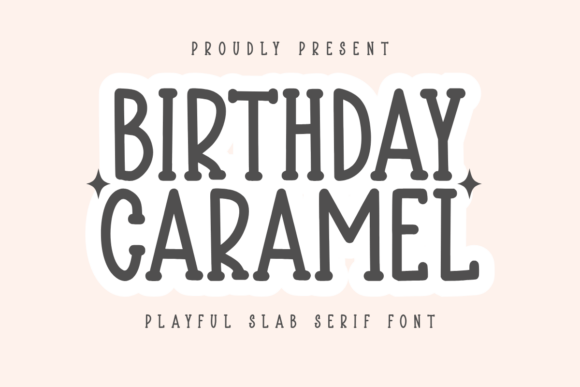
The Perfect Font for Celebrating Life’s Special Moments
Who doesn’t love a good birthday party? The excitement, the cake, the balloons, and the decorations – it’s a time to let loose and have fun! As a designer, you’re often tasked with creating the perfect visual elements to match the celebratory atmosphere. That’s where the Birthday Caramel Font comes in – a playful slab serif font that’s sure to bring a smile to anyone’s face.
With its rounded edges and bold presence, the Birthday Caramel Font is the perfect choice for creating eye-catching birthday invitations, kids’ party decor, product packaging, greeting cards, posters, and more. As a designer, you’ll appreciate the versatility and friendliness of this font, which can instantly elevate your creative projects and make them stand out from the crowd. Whether you’re working on a birthday party design or just need a fun font to add some personality to your work, the Birthday Caramel Font is a valuable addition to your design toolkit.
Birthday Caramel Font Key Features
- Font Family: Birthday Caramel
- Unique Characteristics: Hand-drawn, whimsical, and playful design, ideal for birthday invitations, party decorations, and celebratory materials
Birthday Caramel Font Review
Overall, I think the Birthday Caramel Font has its charm, but it also has some notable limitations. Let’s dive into the details.
- Unique and playful feel: The font has a whimsical, celebratory vibe that’s perfect for birthday-related designs.
- Great for hand-drawn look: The font’s imperfections and irregularities give it a hand-drawn feel that can add a personal touch to designs.
- Good for casual designs: The font is suitable for social media graphics, party invitations, and other casual designs where a playful tone is desired.
- May not be legible at small sizes: The font’s irregularities can make it difficult to read at small sizes or in complex designs.
- Limited font family: The font family is relatively small, which can limit its versatility in designs.
- Not suitable for formal designs: The font’s playful tone may not be suitable for formal or professional designs, such as business reports or academic papers.
The Birthday Caramel Font is a fun and playful addition to any designer’s toolkit, but it’s essential to use it judiciously. It’s perfect for casual designs where a whimsical tone is desired, but it may not be the best choice for formal or complex designs.
For a more polished look, use the font in combination with other birthday-themed elements, such as balloons and confetti.
Use the font to create custom birthday invitations, party banners, or other celebratory graphics.
Use the font to create custom birthday cards, party invitations, or other celebratory documents.
For a more dramatic effect, use the Birthday Caramel Font in bold or italic styles. Common use cases include:
- Birthday invitations and party banners
- Celebratory graphics and social media posts
- Custom birthday cards and party decorations
Experiment with different font sizes, colors, and styles to find the perfect look for your project.
Alternatives to Birthday Caramel Font
Great Vibes is a modern, elegant script font suitable for creative and artistic projects. It is perfect for use in logos, headings, and titles where a touch of sophistication is needed. Great Vibes is a great alternative to Birthday Caramel Font as it offers a similar playful yet refined feel.
Pacifico is a beautiful, handwritten font with a relaxed and casual vibe. It is ideal for use in packaging design, wedding invitations, and other creative projects where a touch of warmth and personality is desired. Pacifico is a great alternative to Birthday Caramel Font as it offers a similar laid-back feel.
Alex Brush is a elegant, handwritten font with a touch of sophistication and elegance. It is perfect for use in branding, packaging design, and other creative projects where a touch of luxury is needed. Alex Brush is a great alternative to Birthday Caramel Font as it offers a similar refined and high-end feel.